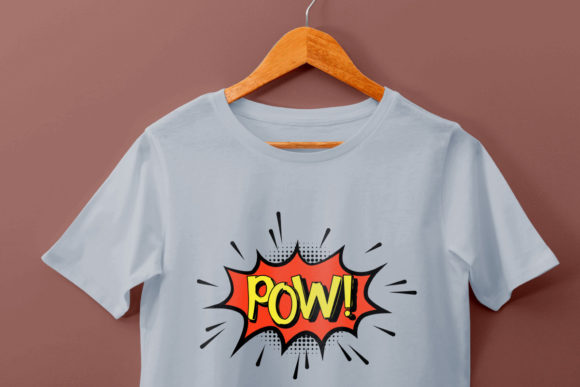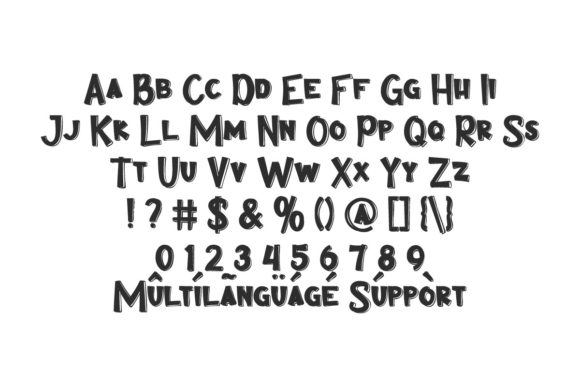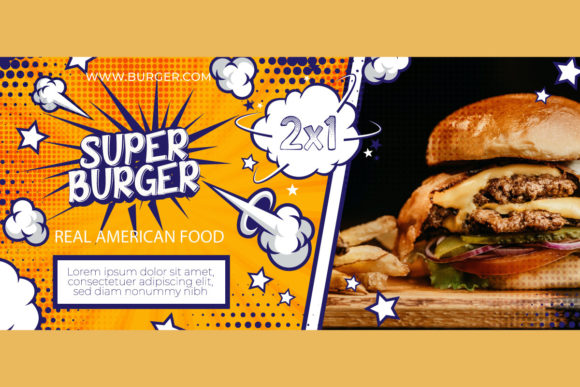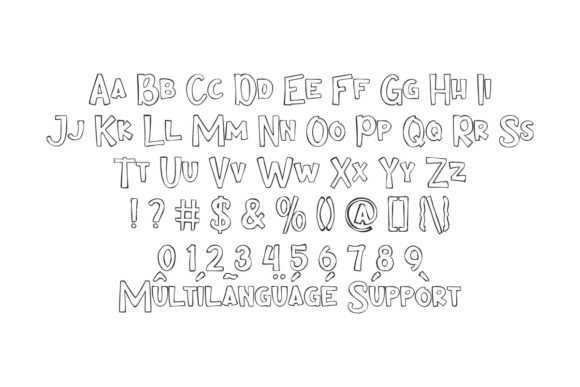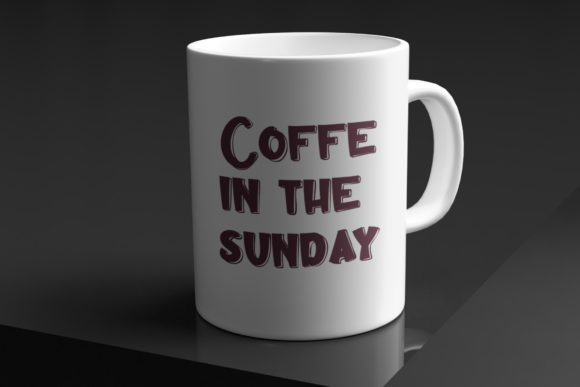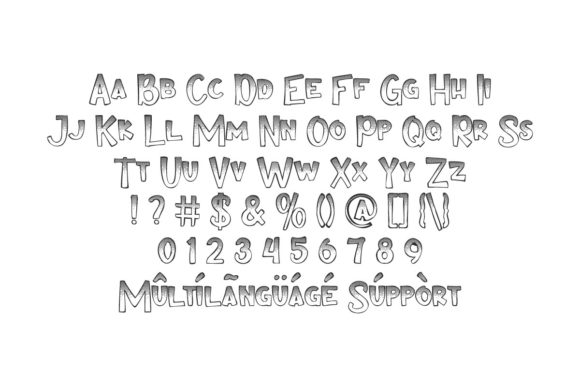
Introducing Comik Font: The Ultimate Retro Display Font for Designers and Crafters
Are you tired of using the same old fonts in your designs? Do you want to add a touch of fun and uniqueness to your projects? Look no further than Comik Font, a cool, retro, and outlined display font that’s taking the design world by storm. With its cartoon-style charm and professional edge, Comik Font is the perfect addition to any designer’s toolkit.
What is Comik Font?
Comik Font is a display font designed to make a statement. Its fun and unique cartoon style is reminiscent of classic comics and retro advertisements, but with a modern twist that makes it perfect for contemporary designs. The font features bold lines, playful curves, and a distinctive outlined style that gives it a 3D effect. Whether you’re designing a logo, a poster, or a social media graphic, Comik Font is sure to turn heads.
Key Features of Comik Font
- Retro-style design: Comik Font’s vintage-inspired design is perfect for designers who want to add a touch of nostalgia to their work.
- Outlined style: The font’s outlined style gives it a bold, eye-catching look that’s perfect for headlines and titles.
- Cartoon-style charm: Comik Font’s playful curves and lines give it a fun and whimsical feel that’s perfect for designs that need a bit of personality.
- Professional edge: Despite its playful style, Comik Font has a professional edge that makes it suitable for a wide range of design projects.
Why Use Comik Font?
So why should you use Comik Font in your designs? Here are just a few reasons:
- Add a touch of fun to your designs: Comik Font is the perfect way to add a bit of personality to your designs and make them stand out from the crowd.
- Create professional-looking designs: Despite its playful style, Comik Font has a professional edge that makes it suitable for a wide range of design projects, from logos and brochures to social media graphics and posters.
How to Use Comik Font
Using Comik Font is easy. Here are a few tips to get you started:
- Use it for headlines and titles: Comik Font is perfect for headlines and titles, where its bold and eye-catching style can really make an impact.
- Experiment with different colors and textures: Comik Font looks great in a range of colors and textures, so don’t be afraid to experiment and find the combination that works best for your design.
- Pair it with other fonts: Comik Font can be paired with a range of other fonts to create a unique and interesting look. Try pairing it with a clean sans-serif font for a bold and modern look.
Who is Comik Font for?
Comik Font is perfect for designers and crafters who want to add a touch of fun and uniqueness to their designs. It’s ideal for:
- Graphic designers: Comik Font is perfect for graphic designers who want to create stunning logos, posters, and social media graphics.
- Crafters: Comik Font is also great for crafters who want to add a personal touch to their projects, from handmade cards to DIY signs.
Comik Font is a cool, retro, and outlined display font that’s perfect for designers and crafters who want to add a touch of fun and uniqueness to their designs. With its cartoon-style charm and professional edge, Comik Font is the perfect addition to any designer’s toolkit. Whether you’re designing a logo, a poster, or a social media graphic, Comik Font is sure to turn heads. So why not give it a try and see the difference it can make in your designs?